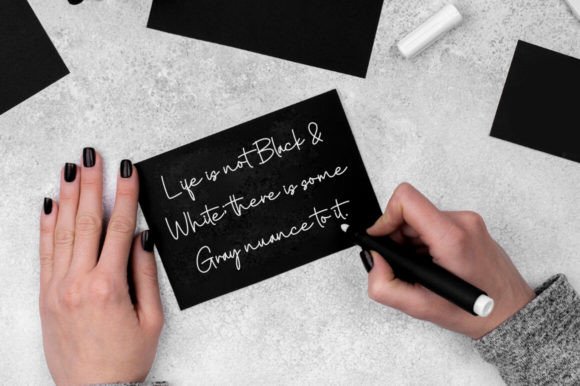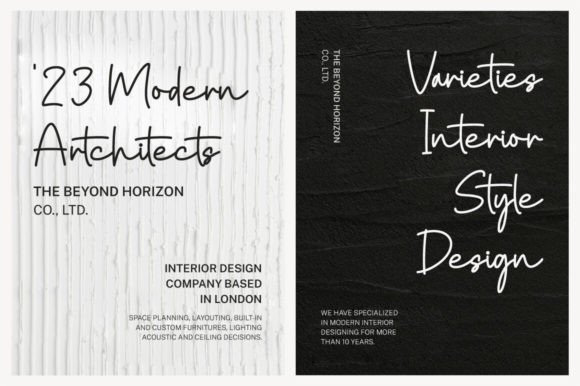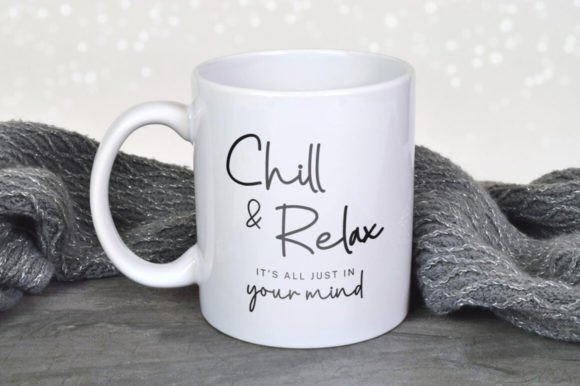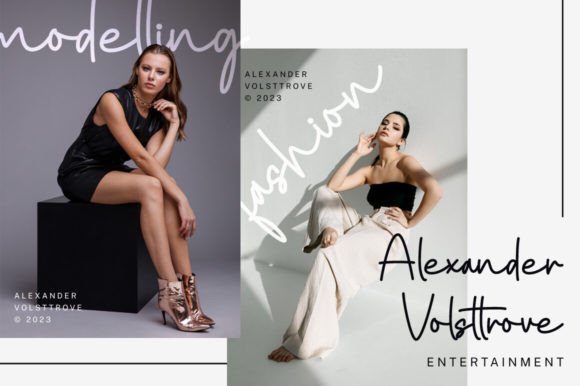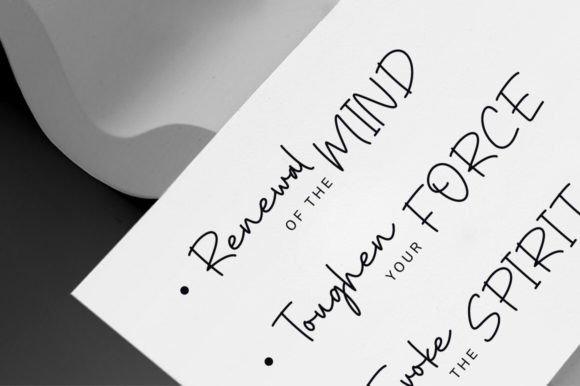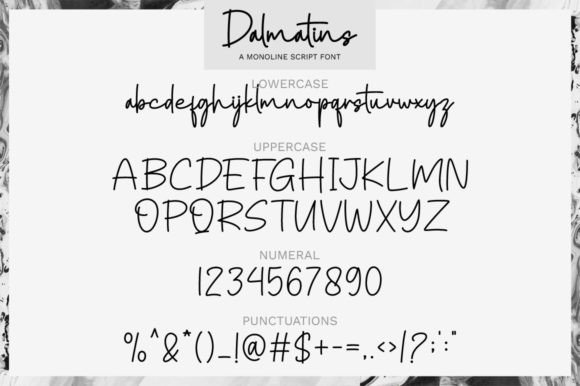
Introduction to Dalmatins Font
As a designer, there’s nothing quite like the thrill of bringing a creative project to life. You’ve poured your heart and soul into every detail, from the initial concept to the final product. But sometimes, it’s the smallest element that can make or break the entire design. For me, that element is the font – the perfect harmony of style and substance can elevate even the most mundane design to new heights.
That’s where Dalmatins Font comes in – a beautifully crafted handwritten font that exudes elegance and sophistication. With its transparent background and high-quality design, it’s the perfect addition to any creative project. Whether you’re looking to create a stunning logo, a memorable brand identity, or a poignant quote, Dalmatins Font is sure to make a lasting impression.
What sets Dalmatins Font apart is its unique ability to strike a delicate balance between uncluttered elegance and intricate sophistication. It’s a true design resource, offering a level of flexibility and creativity that’s hard to find in other fonts. And the best part? It’s available for free download, making it an invaluable asset for designers of all levels.
Dalmatins Font
- Includes a comprehensive character set with extensive language support, making it suitable for a wide range of applications.
- Unique characteristics include a bold, playful feel and intricate details, making it a standout choice for creative projects.
Honest Review: Dalmatins Font
I recently had the chance to work with the Dalmatins Font in a creative project, and I must say it’s been a game-changer. The font is a high-quality, free download that offers a lot of versatility.
- High-quality glyphs: The font’s characters are well-designed and look great in a variety of sizes and contexts.
- Limited language support: Unfortunately, the font only supports a limited number of languages, which might be a issue for designers working on international projects.
- No bold or italic variations: While the font’s regular weight is great, not having bold or italic options can limit its use in certain design scenarios.
Overall, I’m impressed with the Dalmatins Font. While it has some limitations, its high-quality design and free download make it a valuable resource for designers. I’d definitely recommend it for anyone looking for a reliable, creative font for their next project.
Common Use Cases for Dalmatins Font
The Dalmatins Font is ideal for various creative projects, including graphic design, web design, and digital art. Its unique design makes it perfect for creating eye-catching logos, social media graphics, and posters.